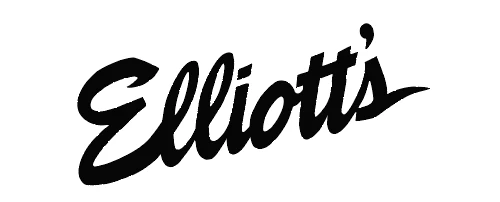
Help identifying two fonts
Hello everyone. I'm working on a website and need help identifying the fonts used in the logos. I went sent some assets but, of course, the type has been outlined. I've tried several of the font ID websites but to no avail. I've attached screenshots. Thanks in advance!
The black one looks like a bit tweaked Brush Script. The brown one is more difficult 😞
It's frustratingly similar to Brush Script 😩
I have to wonder if it's custom or maybe customized.
looks like customized